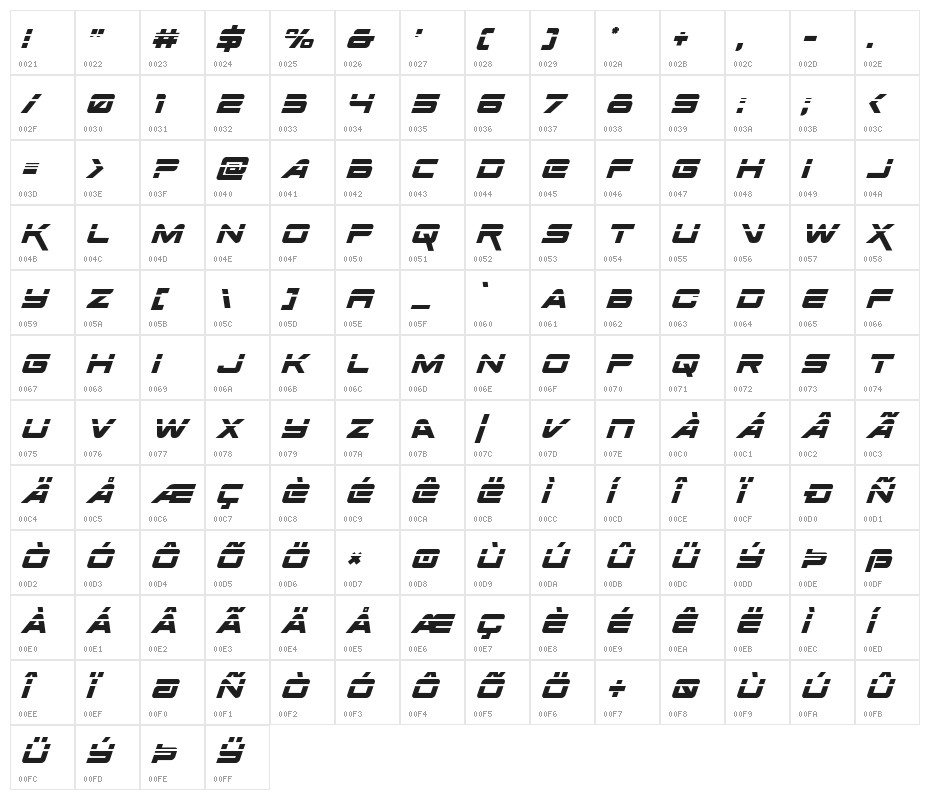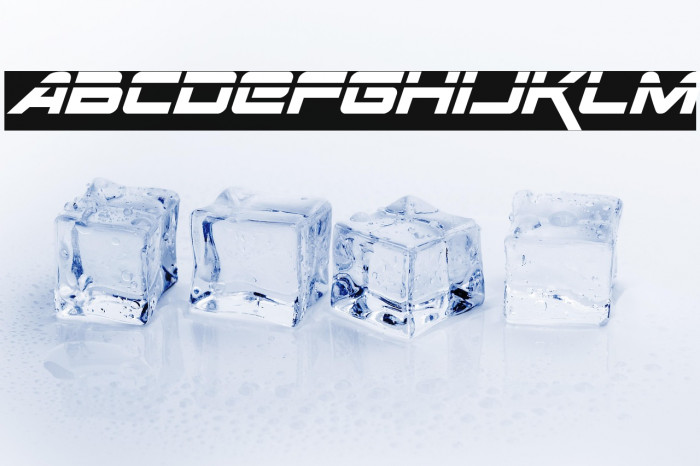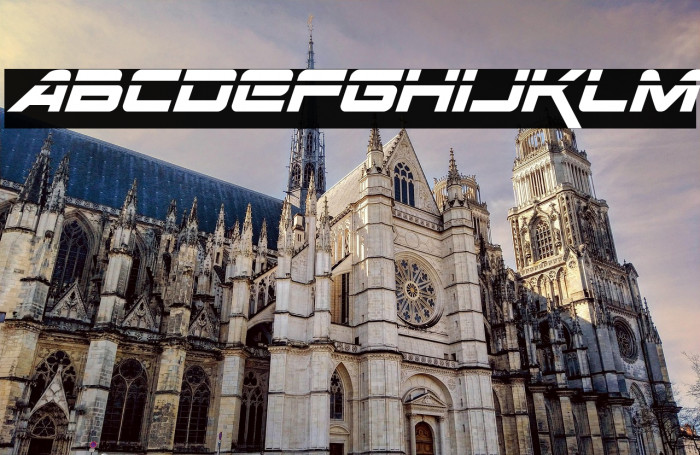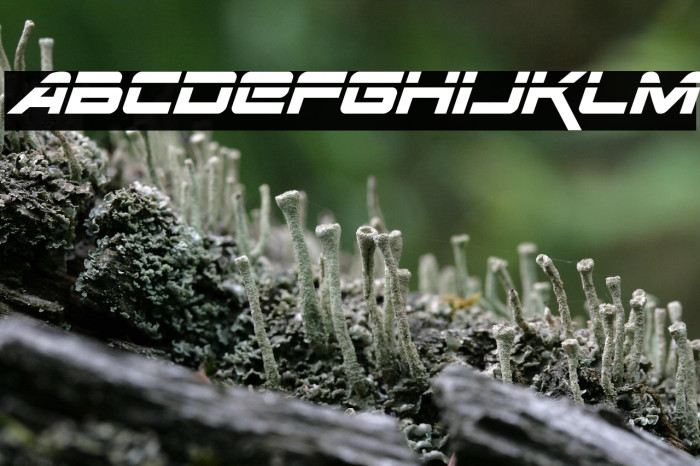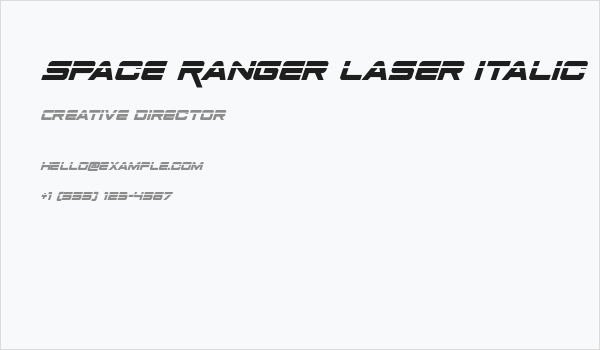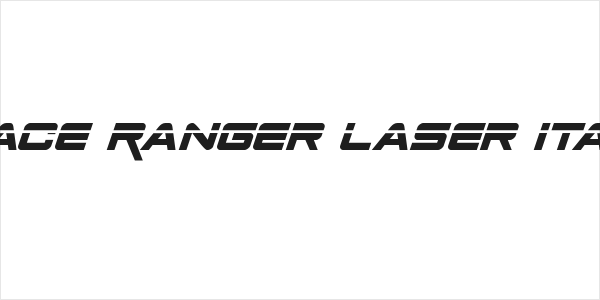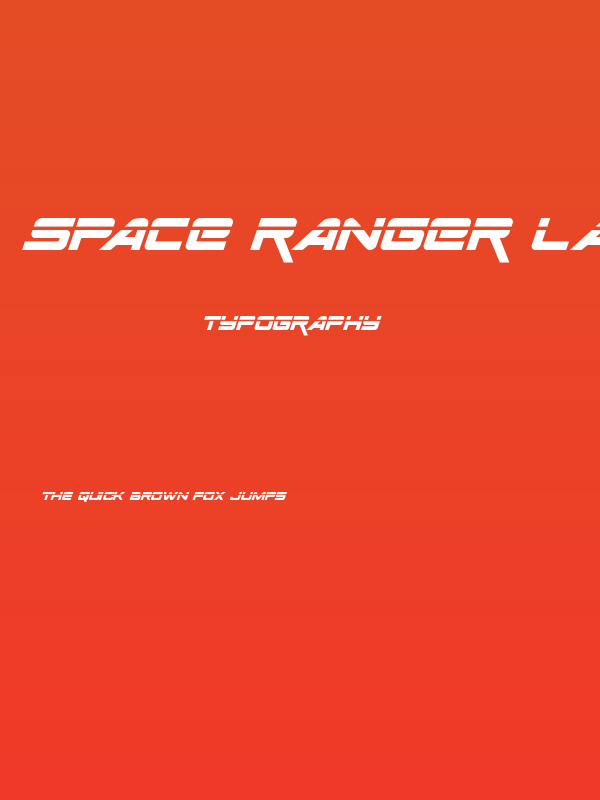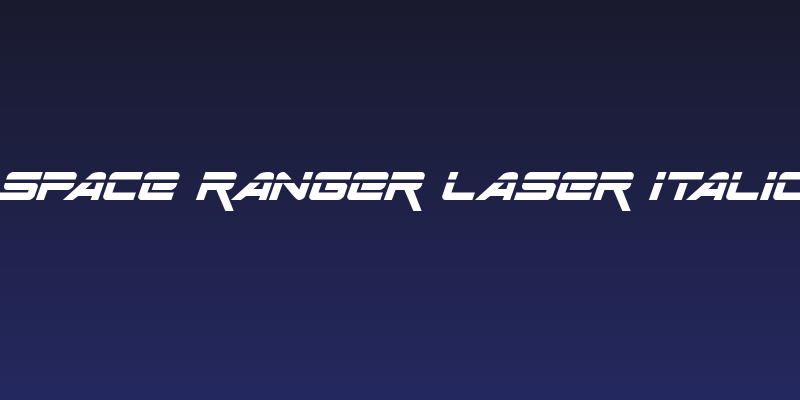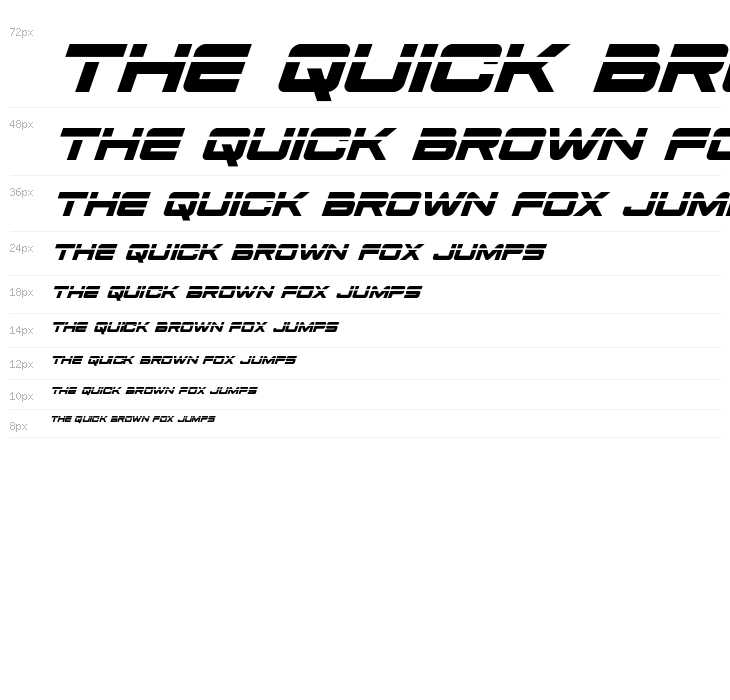
Space Ranger Laser Italic Font
Space Ranger Laser Italic Description
This font features a futuristic and angular design, characterized by sharp edges and a dynamic slant that gives it a sense of motion and energy. The uppercase and lowercase letters are designed with a consistent italicized style, enhancing the sleek, modern aesthetic. The numbers and special characters maintain this cohesive look, making the font suitable for projects that require a bold and innovative appearance. The strokes are uniform in thickness, providing a medium contrast that balances readability with visual impact. The overall style is distinctly modern, with a hint of sci-fi influence, making it ideal for creative and tech-oriented applications.
| Proposed Projects | Ideal for sci-fi themed designs, tech branding, video game titles, and futuristic posters. |